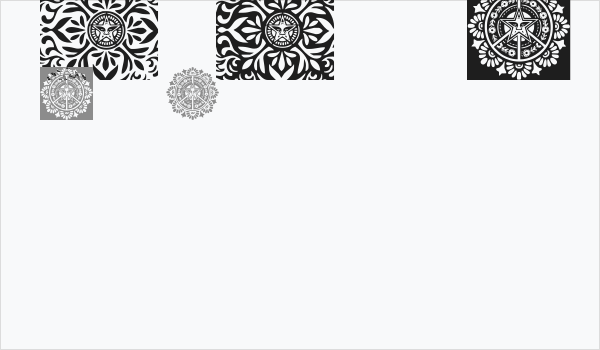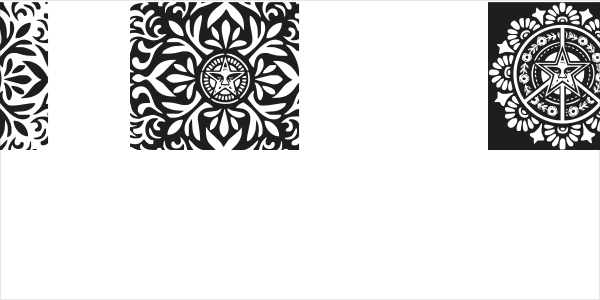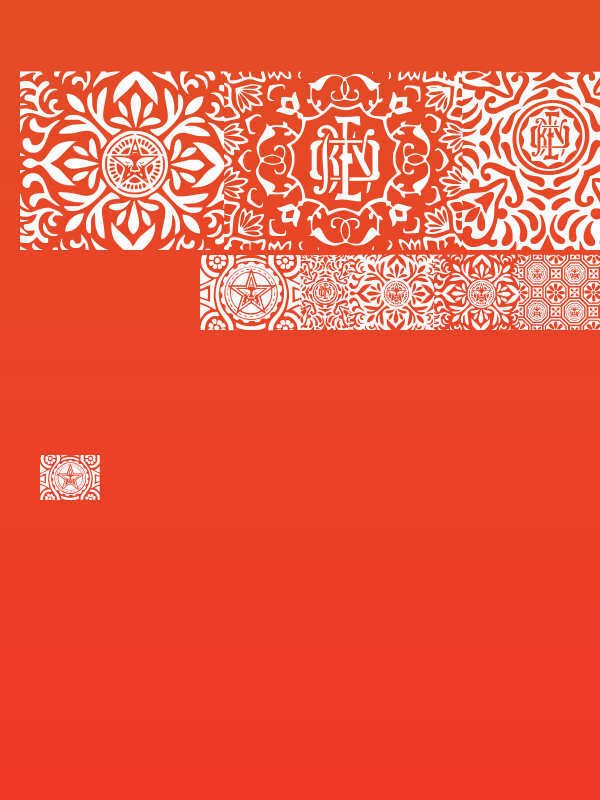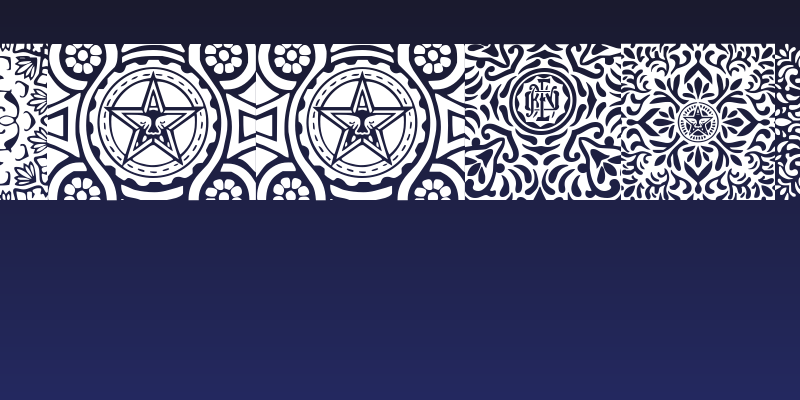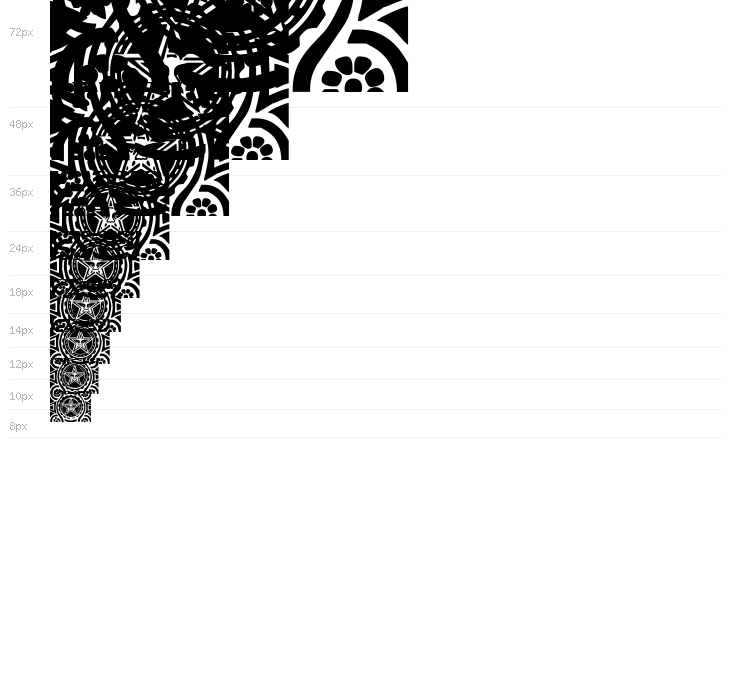
ObeyPatternsCaps Font
ObeyPatternsCaps Description
Highly decorative, intricate pattern-based glyphs with ornate, symmetrical designs and bold contrast, primarily using black and white. Each character is embedded within a unique ornamental motif, making legibility secondary to visual impact.
| Overall Style | Decorative, Ornamental, Artistic |
| Use Case | Logos, Headlines, Posters, Artistic Displays |
| Proposed Projects | Posters, album covers, branding, packaging, event invitations, artistic projects. |